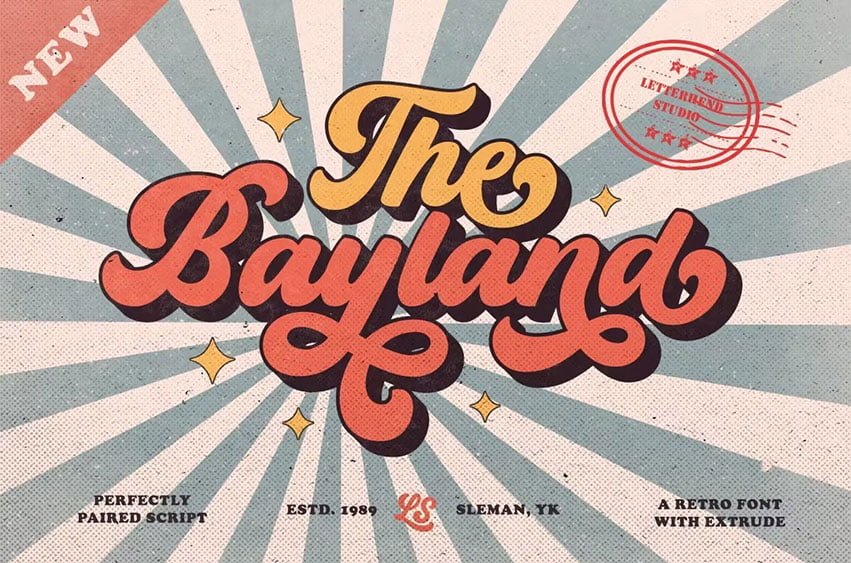
The Bayland Font is A retro bold script which will bring you back to 60s feel. This typeface has the extrude version so you can create your retro effect font in ease. This font perfectly made to be applied especially in logo, and the other various formal forms such as invitations, labels, logos, magazines, books, greeting / wedding cards, packaging, fashion, make up, stationery, novels, labels or any type of advertising purpose.
- uppercase & lowercase
- numbers and punctuation
- multilingual
- ligatures
- alternates
- swashes